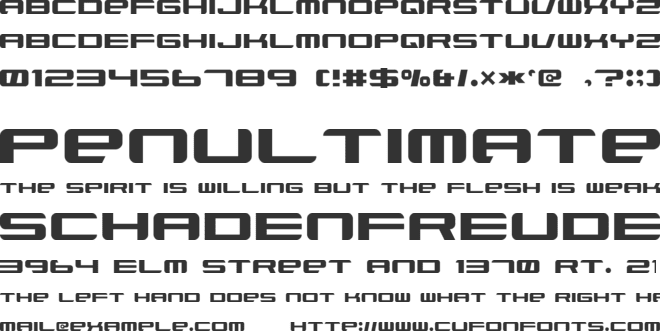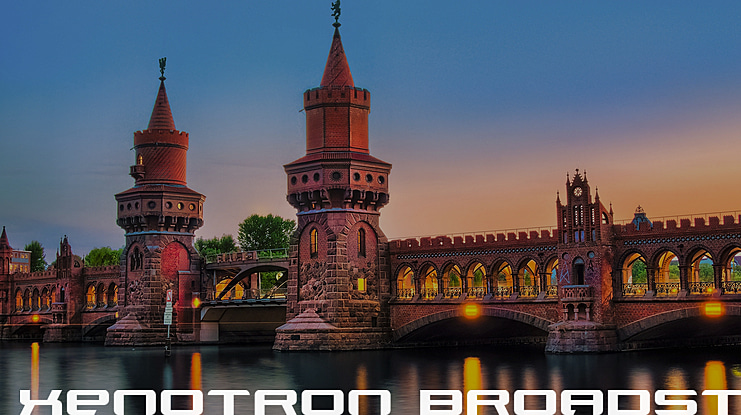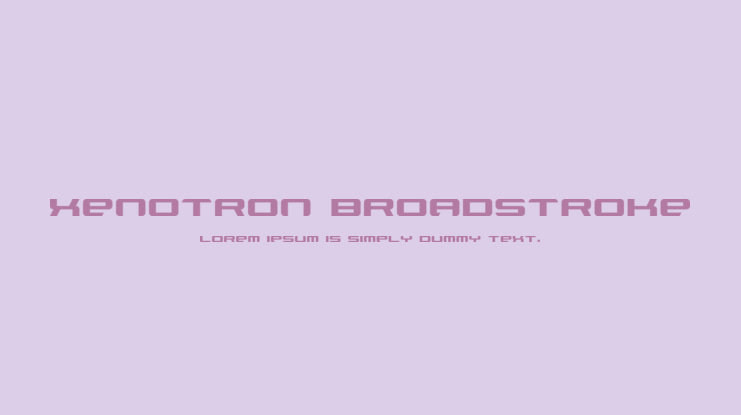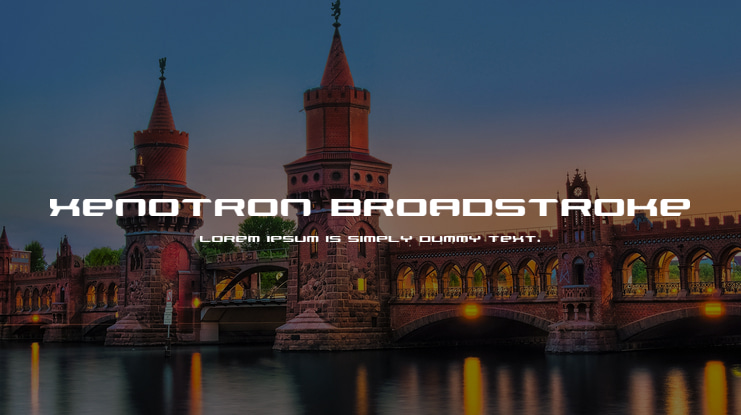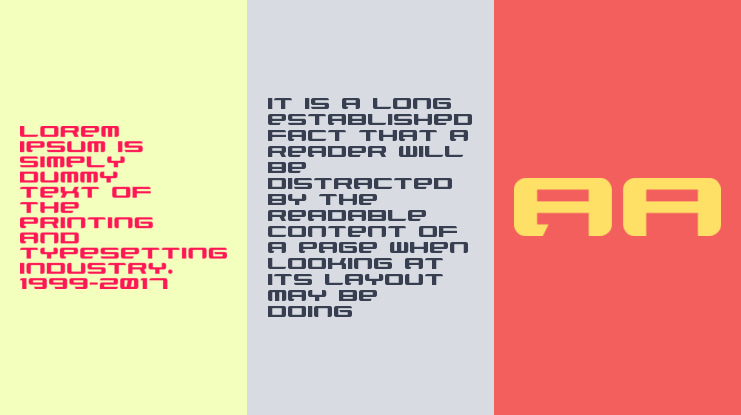
Xenotron Broadstroke Font
Yet another font! I was in desperate need of a flat 'techno' font like this one, so i made it. This design was in part inspired by hip CD covers such as the Wipeout 2097 soundtrack and work by the Designers Republic (and the like). A techno font for techno times.
Believe it or not, the (rather cheesy) term 'techno font' in the above text got me noticed by a computer games website! They asked me to design more 'techno fonts' for them, finding my site after running a search with those two words. One font i designed for them was Xenotron Broadstroke. For a while, it was exclusively theirs, but now you too can get it for free!
XENOTRON Broadstroke by Kees Gajentaan - 1997